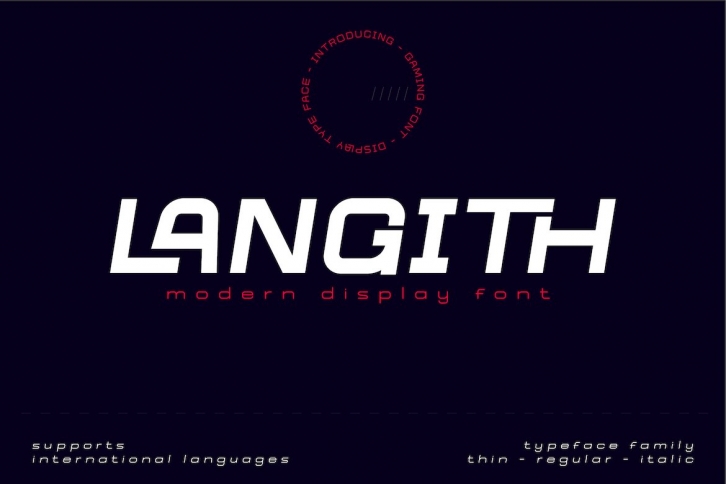
Langith is a gorgeous font that was realeased on March 13, 2021. The font can be used in many style contexts and design environments. Perfect for invitations, magazines, websites, logos, and more! It was designed by twinlettertype and the file size is 3.48 MB. Thanks for checking out this font!